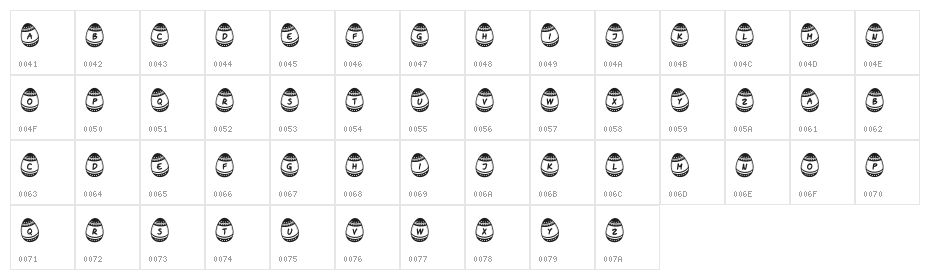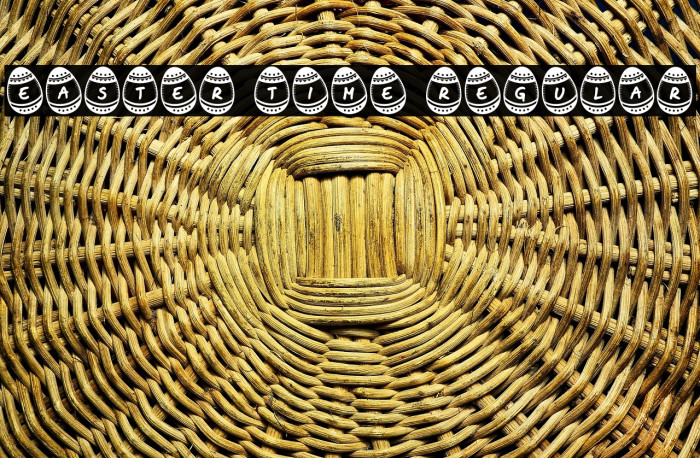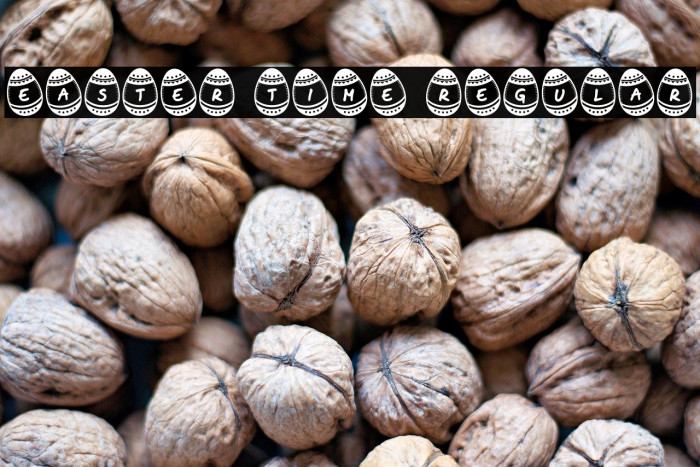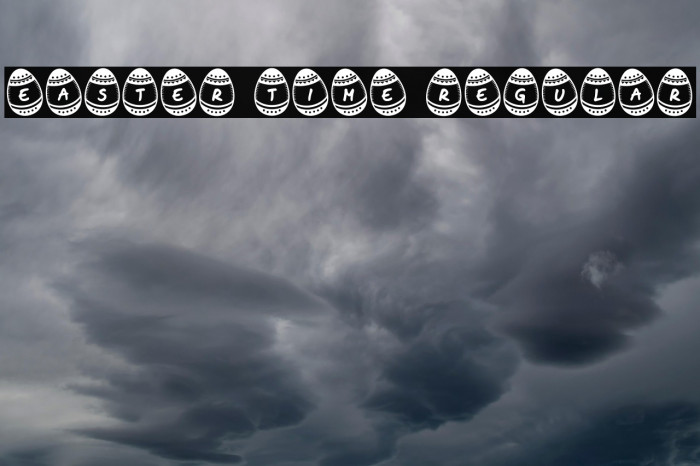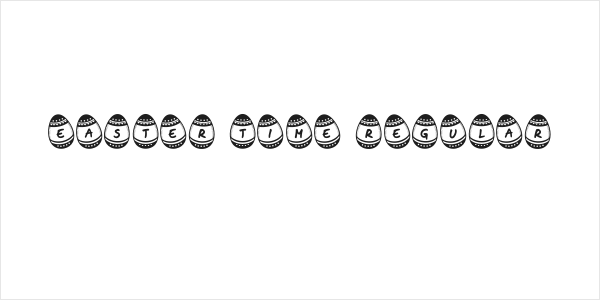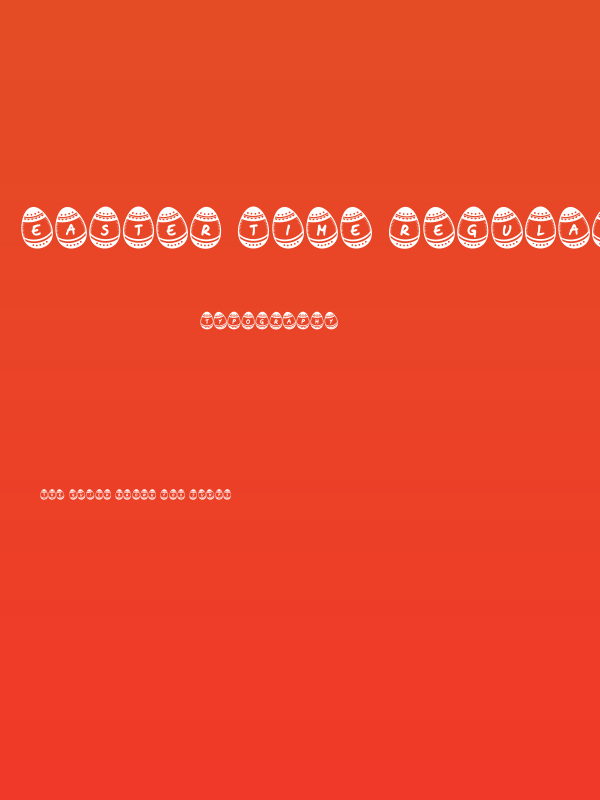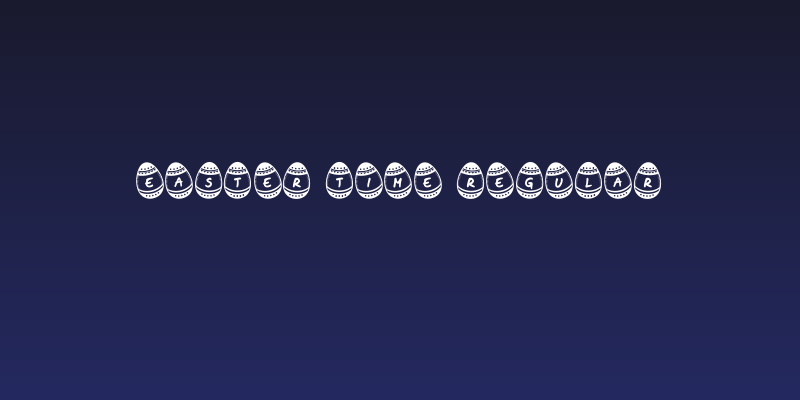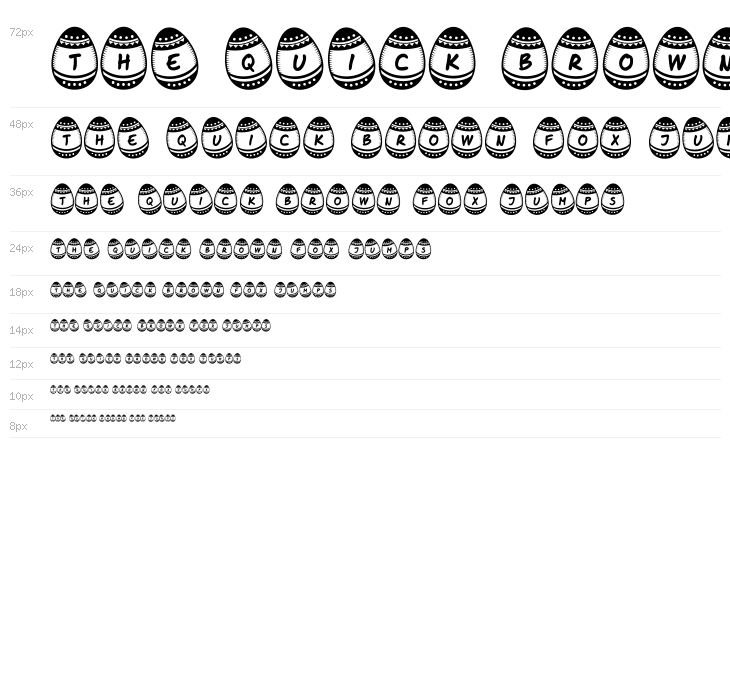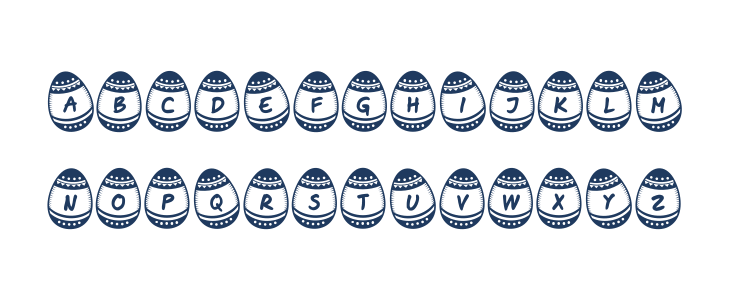
Easter Time Regular Font
Easter Time Regular Description
This playful and decorative font features letters enclosed within Easter egg shapes, each adorned with intricate patterns and designs. The uppercase and lowercase letters are bold and clear, making them easily readable despite the decorative elements. The numbers and special characters maintain the same whimsical style, ensuring consistency across all characters. This font exudes a festive and cheerful vibe, perfect for seasonal themes and celebrations. The unique presentation of each character within an egg shape adds a layer of charm and creativity, making it stand out in any design project.
| Use Case | Headlines, Logos, Seasonal designs |
| Proposed Projects | Ideal for Easter-themed invitations, greeting cards, children's books, and festive banners. |